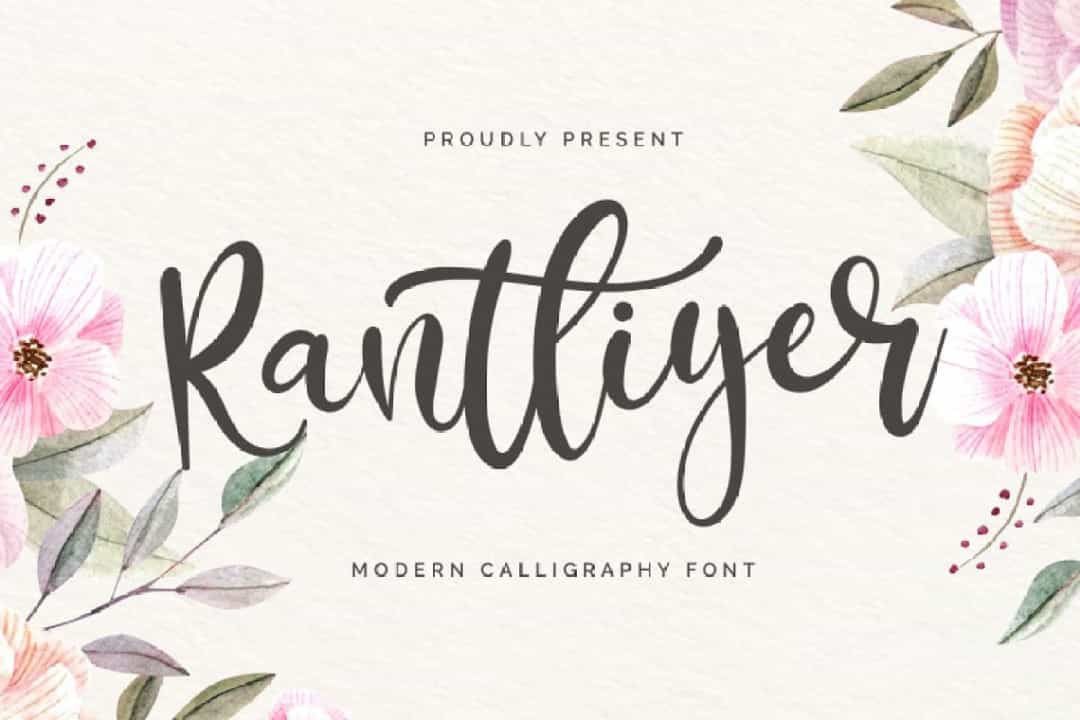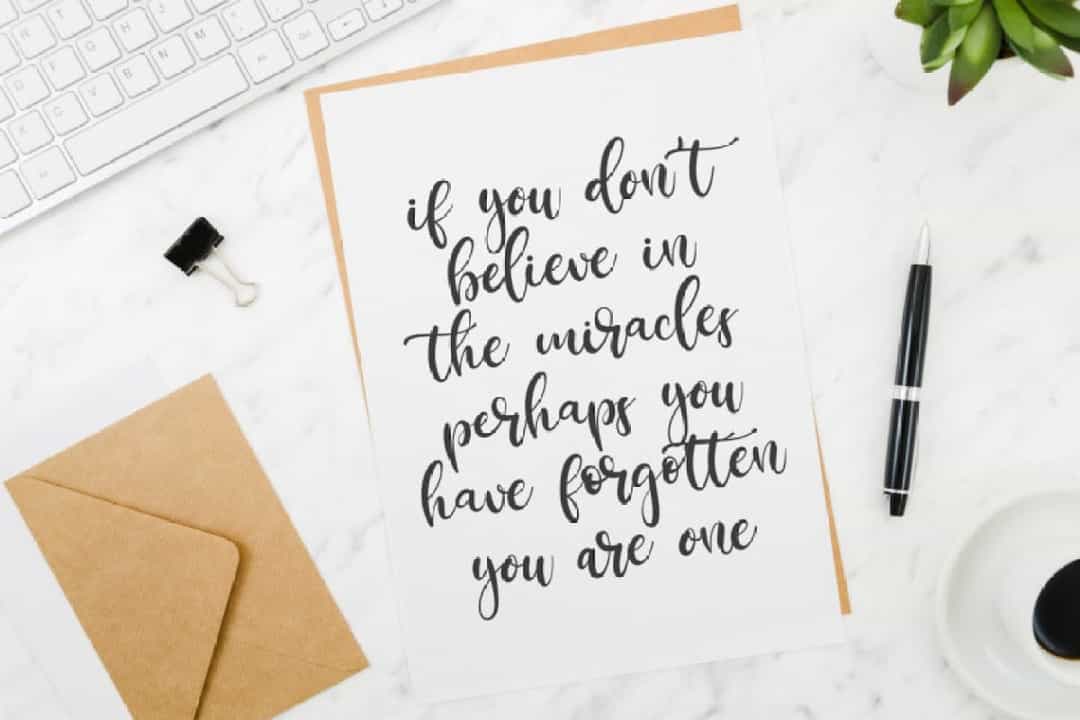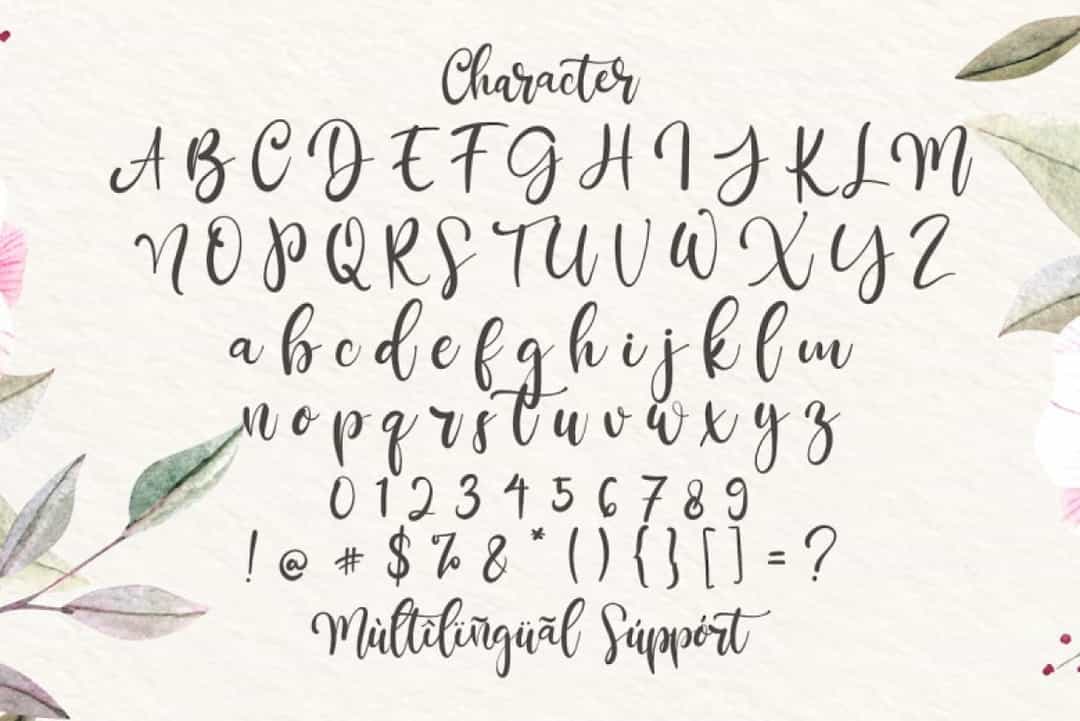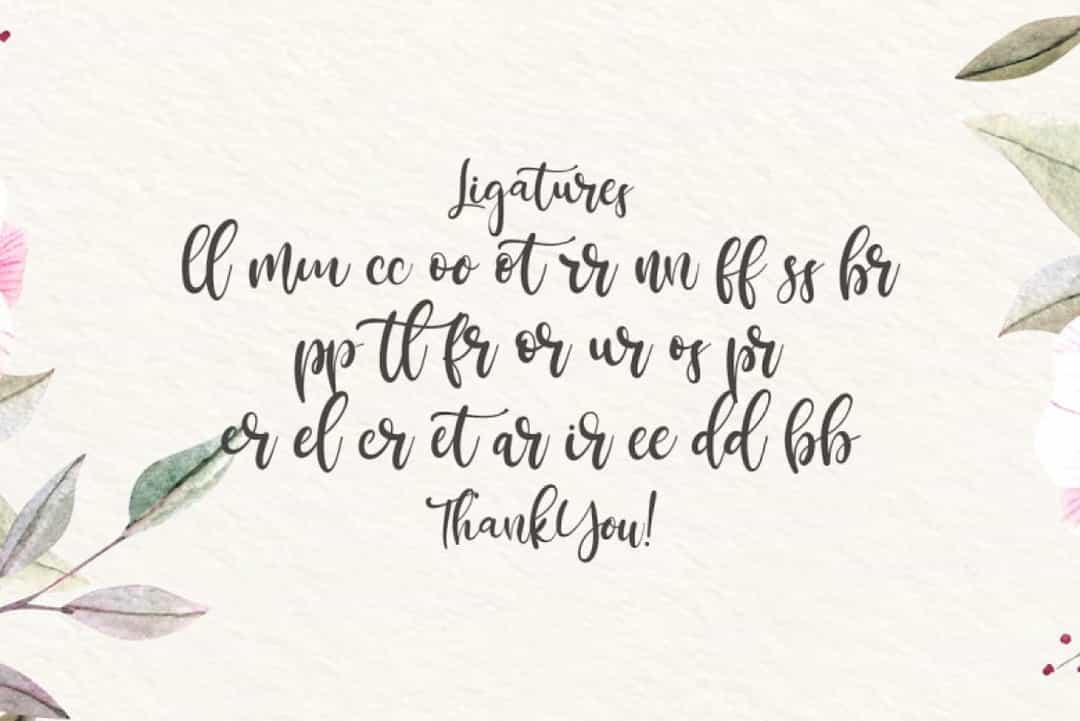
Rantliyer is a beautiful script font penned by hand and will surely have a timeless appeal to it. The modern feel and clean look of the calligraphic elements in this font will enhance your work and make it stand out. Fall in love with Rantliyer today and take new achievements in your work.